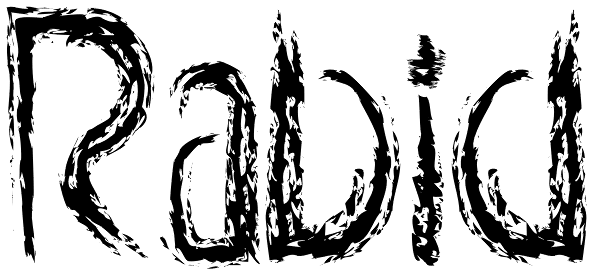
Rabid
Rabid is an inky, messy, super distressed display font. It's part charcoal, part chalk strokes, add a splash a of red and it starts to look like blood. Why SO Serious? It has about 200 glyphs including all those extra pesky foreign features. O Hope...